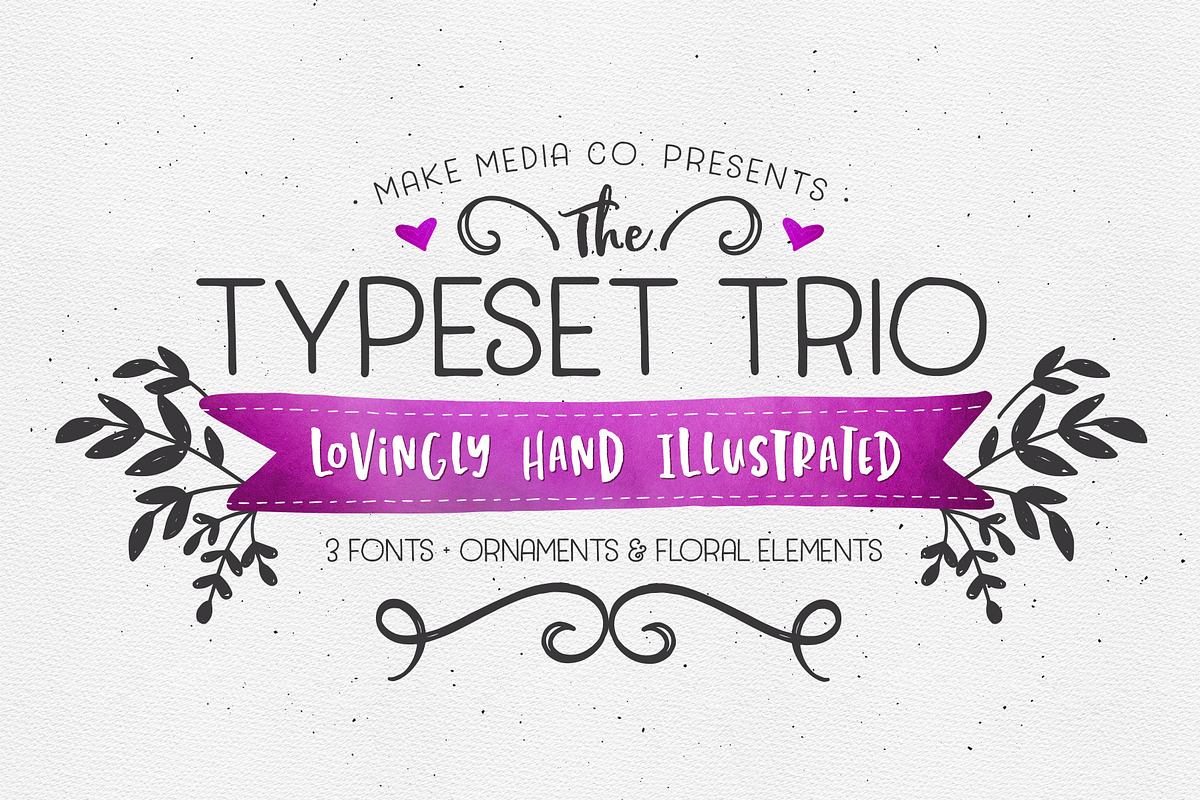
The TypeSet Trio + Illustrations Free Download
Please note, to use this font for commercial purposes, you must purchase the full version. The TypeSet Trio + Illustrations is an all-in-one creative package that includes three unique fonts and a set of beautifully crafted illustrations. Perfect for a variety of design projects, this bundle is ideal for logos, branding, invitations, posters, and more. The fonts offer a stylish mix of handwritten, modern, and serif styles, while the illustrations provide additional design elements to complement your work. Whether you're designing for a creative brand, a special event, or a fun campaign, The TypeSet Trio + Illustrations adds a versatile and artistic touch to your projects. Test it out and enjoy free download access for personal use. Experience the full creative potential of The TypeSet Trio + Illustrations Free Download before purchasing the commercial license. Enhance your designs with this comprehensive font and illustration bundle.